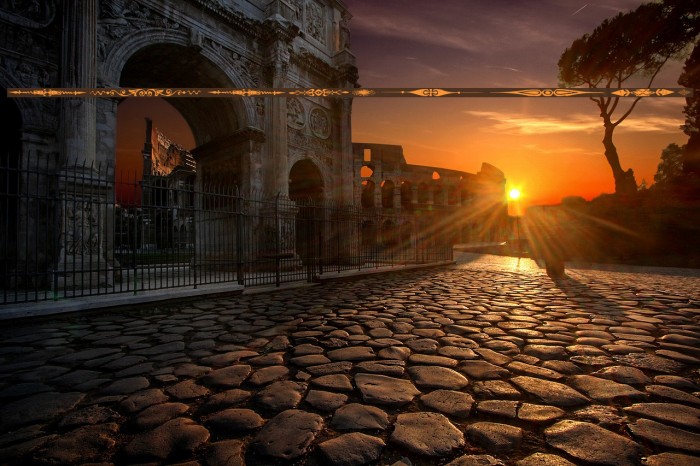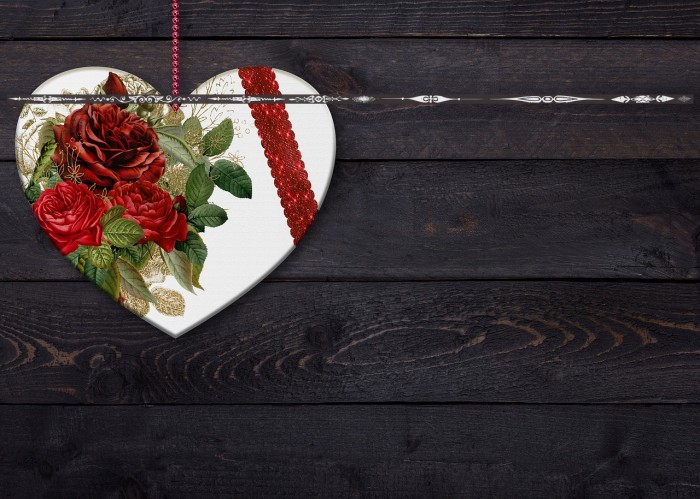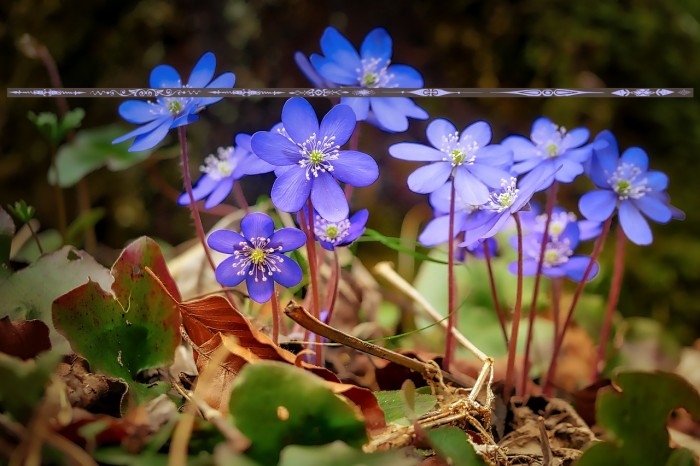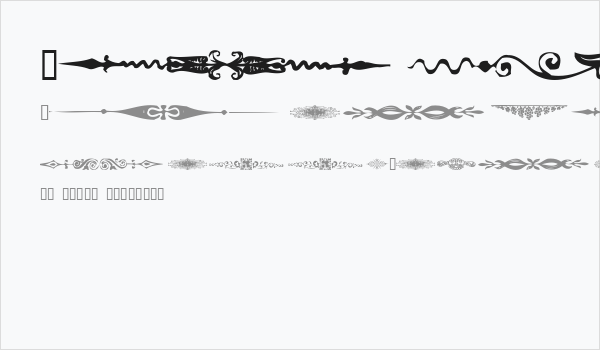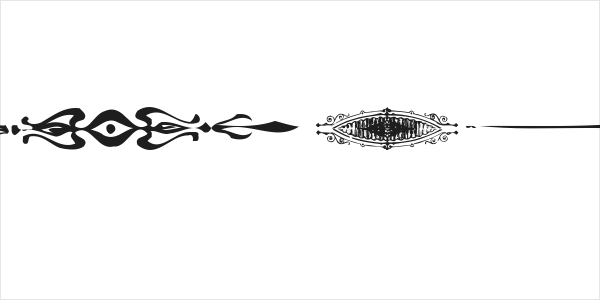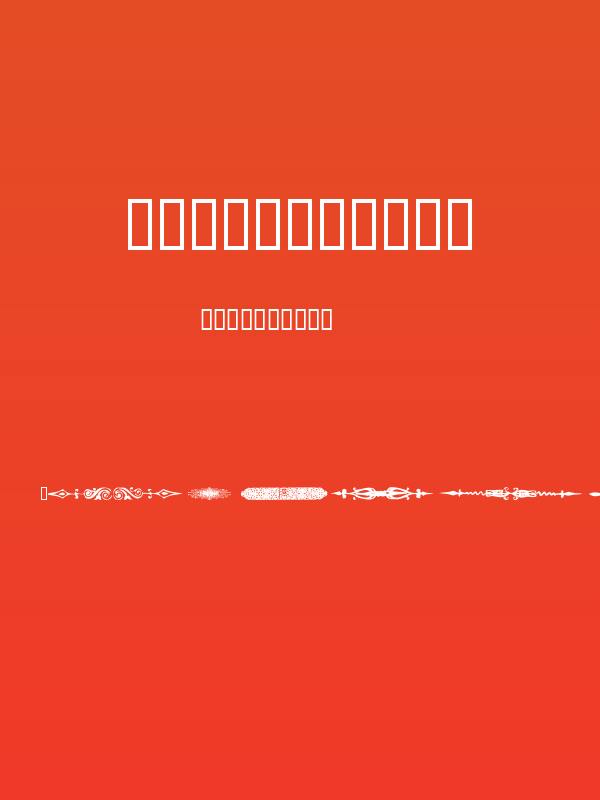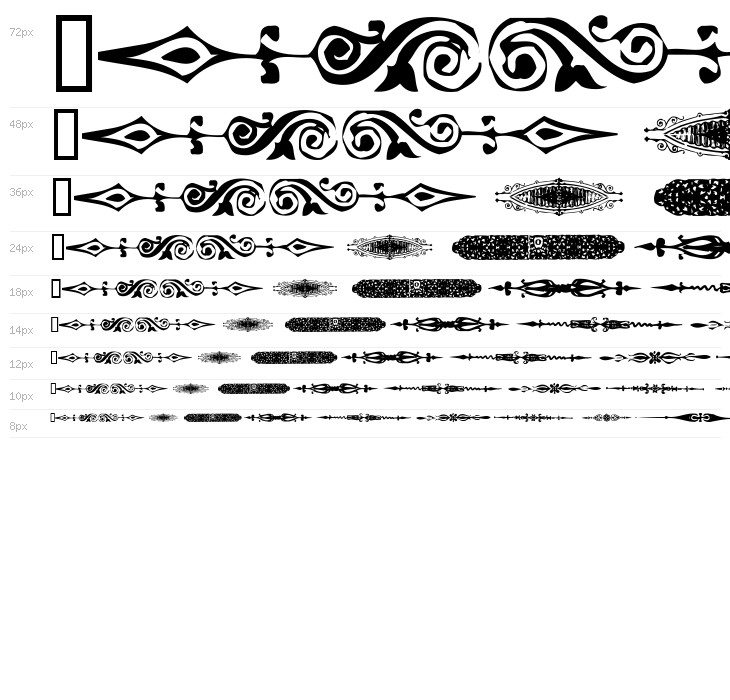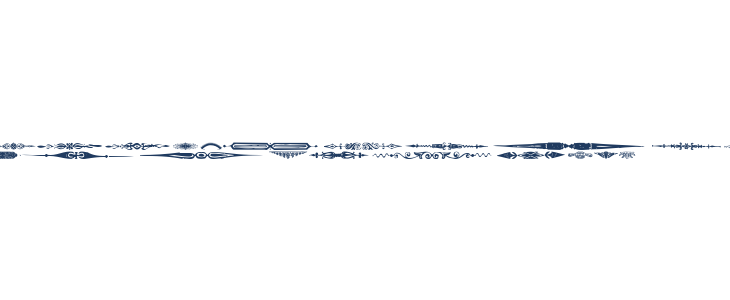
DividersTwo Font
DividersTwo Description
A decorative font consisting of intricate, horizontal divider ornaments with symmetrical and detailed flourishes. The glyphs are thin, elongated, and highly ornamental, resembling vintage or Victorian-style separators rather than traditional alphanumeric characters.
Overall StyleVintage, Decorative
Use CaseDividers, Decorative accents, Invitations
Proposed ProjectsInvitations, certificates, decorative page breaks, wedding materials, vintage-themed designs.